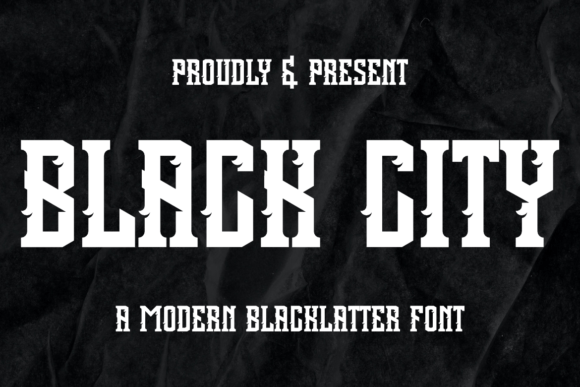
The Dark Allure of Black City Font: A Designer’s Delight
I’ll never forget the night I was working on a tattoo design project, and my client asked for a font that would make their logo look like a fusion of urban grit and metal band aesthetics. I scoured the internet, tried countless fonts, but nothing seemed to fit the bill. That was until I stumbled upon **Black City**, a modern blackletter font that instantly caught my attention. Its unique blend of horror metal and retro-urban vibes made it the perfect fit for my project.
An Honest Review of Black City Font
- ✨ Highly detailed and intricate design that sets it apart from other blackletter fonts
- ✅ Perfect for creating exquisite retro-urban designs, tattoo business branding, logos, and vintage designs
- 💥 The font’s horror metal aesthetic adds a bold, edgy touch to any design
- 🎨 The OpenType features and glyphs offer a wide range of creative possibilities
- 🤔 Some characters may require manual kerning to achieve optimal spacing
- ⚠️ The font’s complexity may make it challenging to use on very small scales or low-resolution screens
The Designer Inspiration Behind Black City Font
The story goes that the designer behind Black City Font was inspired by the dark alleys and abandoned buildings of urban landscapes. They wanted to create a font that would capture the essence of horror metal music and the gritty, retro aesthetic of old-school tattoo culture. The result is a font that’s both haunting and beautiful, perfect for designers looking to add a touch of edginess to their work.
| Font Name | Black City Font |
| What type of projects is Black City Font best suited for? | Black City Font is perfect for designing logos, tattoos, vintage posters, and other projects that require a bold, urban aesthetic. |
| Is Black City Font suitable for body text? | No, Black City Font is best used for headlines, titles, and short paragraphs due to its complexity and bold style. |
| Is Black City Font available in different styles or weights? | Currently, Black City Font is available in a single style, but the designer may release additional weights or styles in the future. |